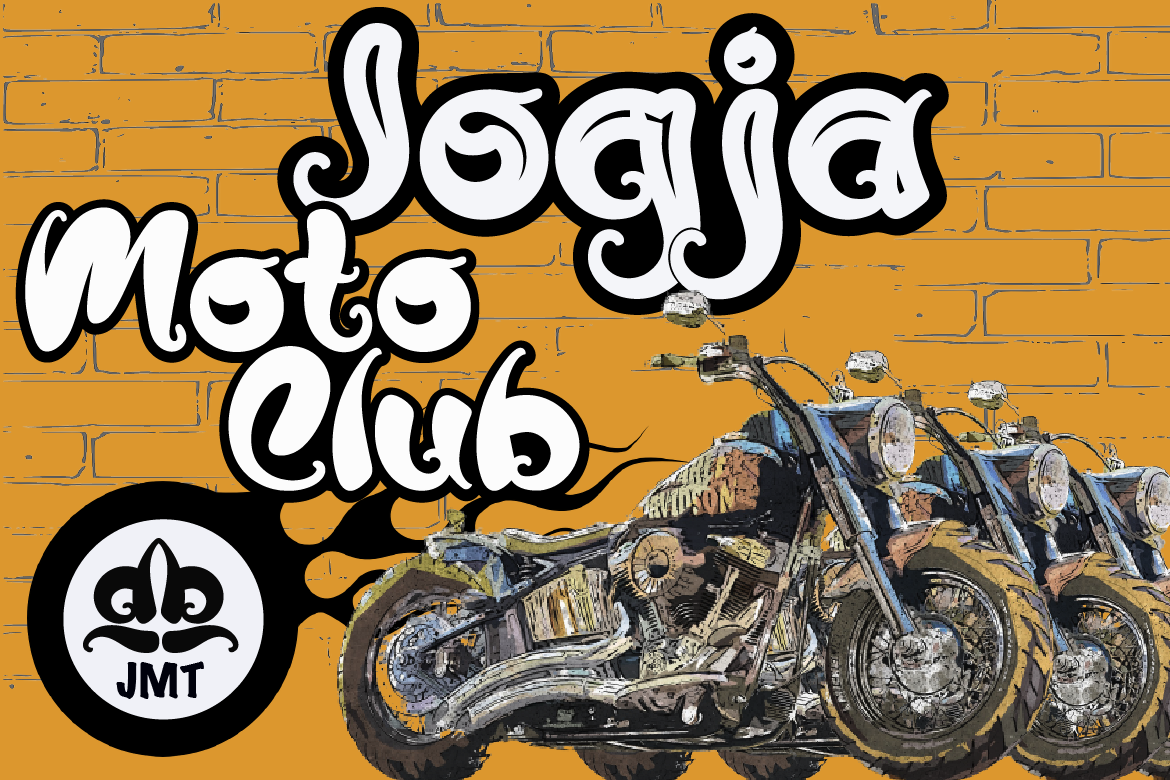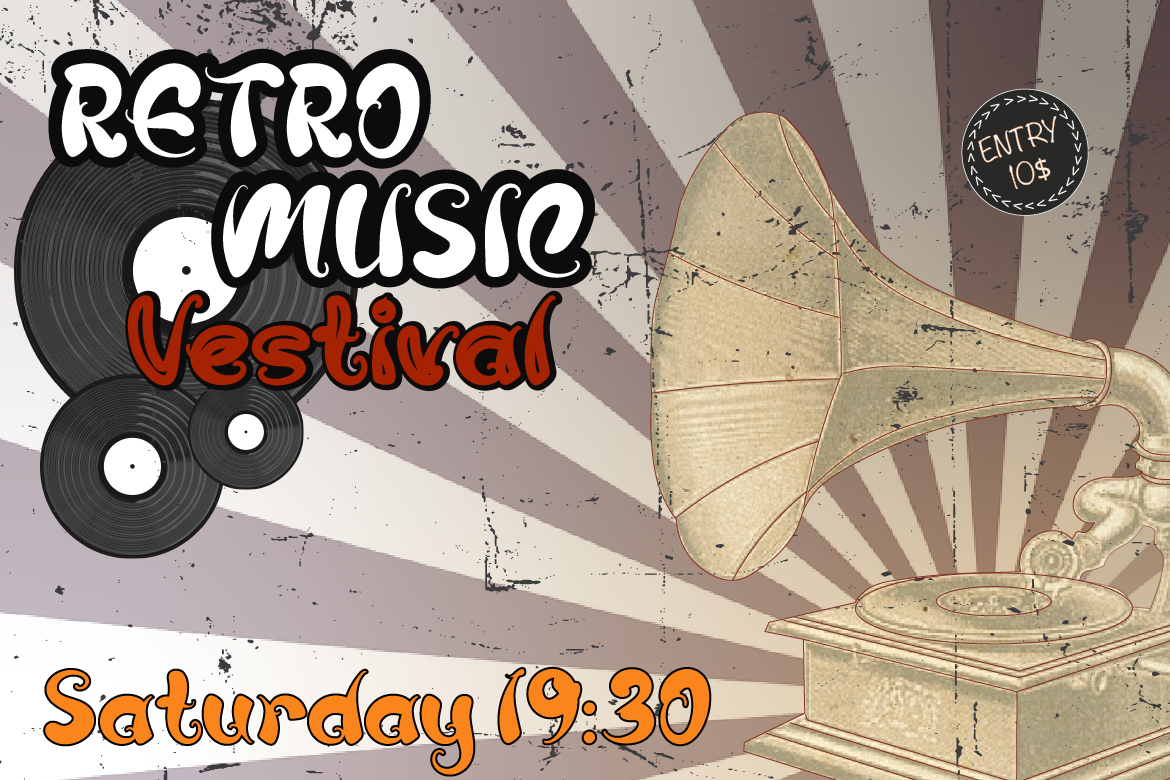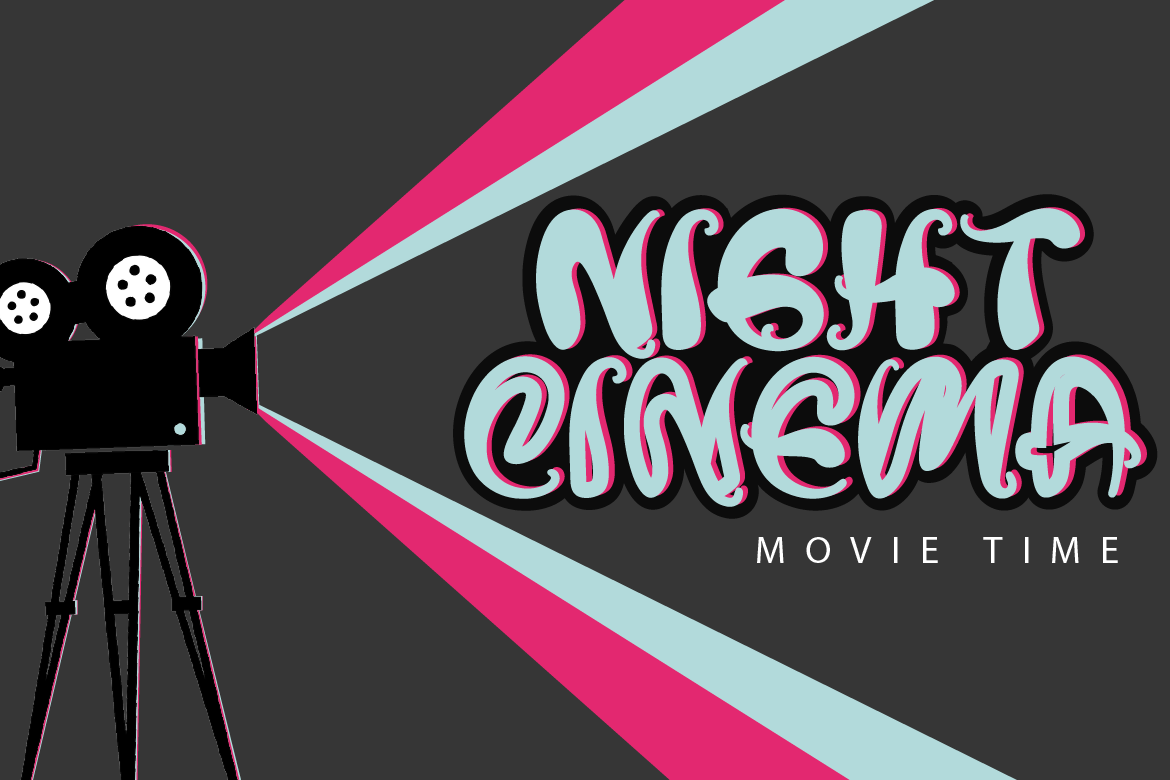
Nelayts Display Font. Bold retro script that takes you back to the ’60s feel. This font features a rustic style that will add a retro feel to any character. And every indentation of the letters is very pleasing to the eye of the beholder. This font is very suitable to be applied especially to logos, and various other formal forms such as invitations, labels, logos, magazines, books, greeting/wedding cards, packaging, fashion, make up, stationery, novels. , label or any type. . advertising purposes.